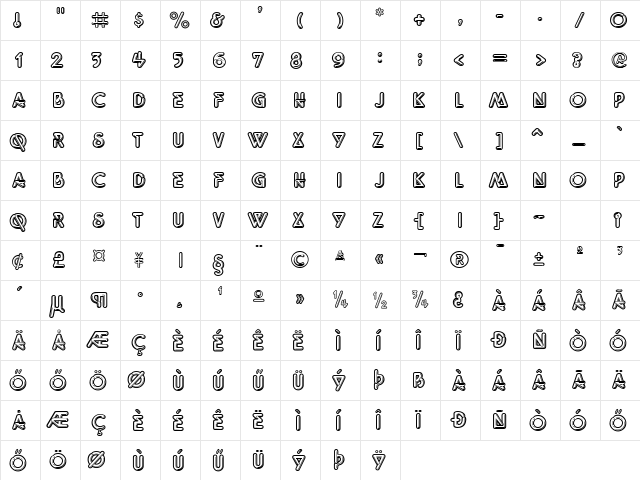
H_Quicksilver ITCNormal
Design Context for H_Quicksilver
H_Quicksilver is a composed and adaptable typeface that performs quietly and consistently across a wide range of design contexts.